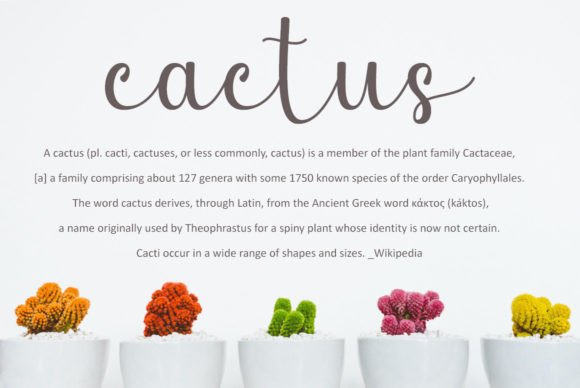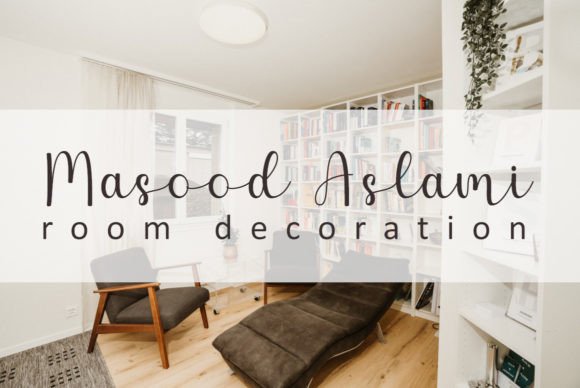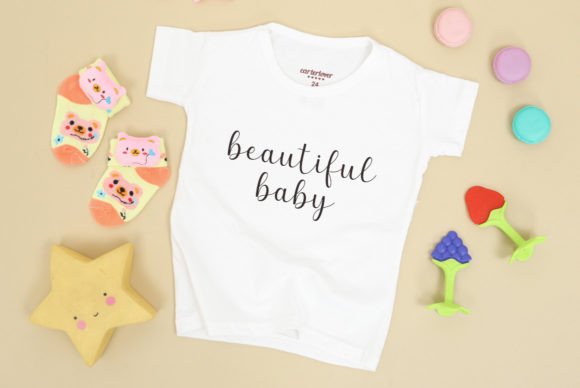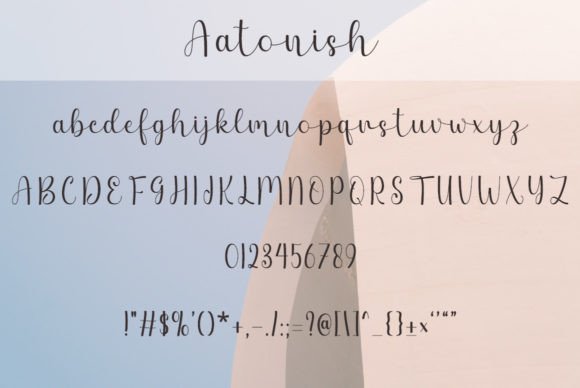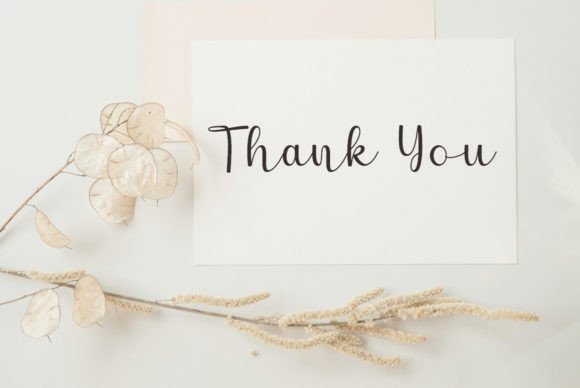
Astonish Font: Elevate Your Designs with this Dazzling Script Font
Are you tired of using the same old fonts in your designs? Look no further than the Astonish Font, a stunning script font that is sure to take your creations to the next level. With its neat and highly detailed craftsmanship, Astonish is the perfect addition to any font library, regardless of the topic or theme.
What Makes Astonish Font So Special?
Astonish is more than just a font – it’s an experience. Its elegant and flowing script is carefully crafted to add a touch of sophistication and glamour to any design. Whether you’re working on a logo, brochure, or social media post, Astonish is the perfect choice for designers and crafters who want to make a statement.
Key Features of Astonish Font
- Neatly Crafted: Astonish is meticulously designed to ensure that every letter and stroke is perfect, making it ideal for use in a variety of design projects.
- Highly Detailed: With its intricate details and elegant lines, Astonish is sure to add a level of sophistication to any design.
- Versatile: Whether you’re working on a formal or informal project, Astonish is the perfect choice, as it can adapt to any theme or topic.
- Easy to Read: Despite its ornate details, Astonish is surprisingly easy to read, making it perfect for use in body text or headlines.
How to Use Astonish Font in Your Designs
Using Astonish in your designs is easy. Here are a few tips to get you started:
- Pair it with a Sans-Serif Font: For a classic look, pair Astonish with a sans-serif font, such as Arial or Helvetica.
- Use it as a Headline Font: Astonish is perfect for use in headlines, as its elegant script and intricate details are sure to grab attention.
- Add it to Your Brand Identity: If you’re looking to create a unique brand identity, consider using Astonish as your primary font.
Benefits of Using Astonish Font
So why should you choose Astonish for your designs? Here are just a few benefits:
- Stand Out from the Crowd: With Astonish, you’ll be able to create designs that stand out from the crowd and grab attention.
- Elevate Your Brand: By using Astonish in your designs, you’ll be able to add a level of sophistication and elegance to your brand.
- Easy to Use: Astonish is surprisingly easy to use, even for those who are new to design.